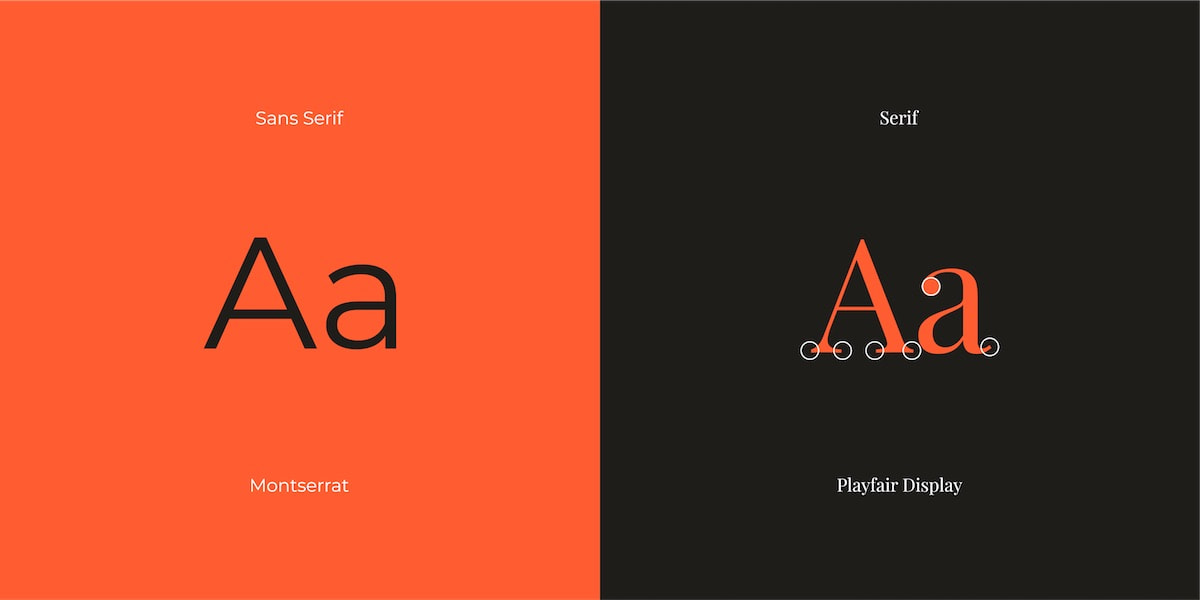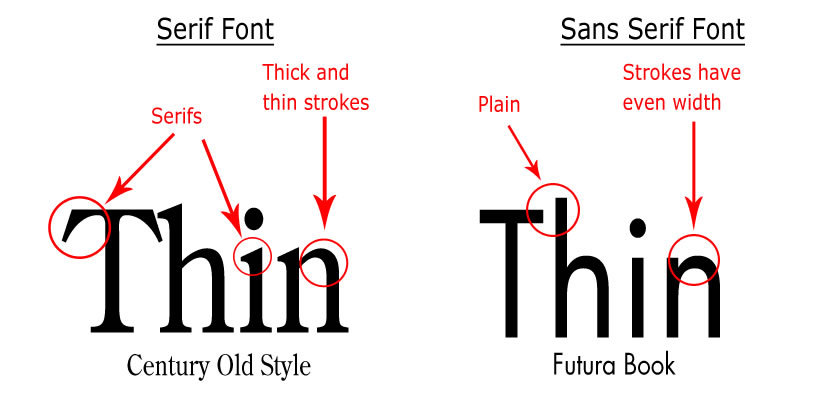
Sans Vs Serif Fonts. “the conventional wisdom is that sans serif fonts are supposed to mimic handwriting, which has more of a flow to it,” says todd. Sans serif fonts say modern, approachable, and clean.
Sans serif fonts also work well where there’s very little room for copy. Since they have fewer details and features, they are easier to render clearly in those environments. At best, one can only test a specific 'font x' vs.
Mix A Decorative Script With Sans Serif To Create A Formal Mood.
Baschone is a vintage and old style serif that brings a lot of personality, while manford is contemporary with hints of 70s vintage. Sans serif fonts say modern, approachable, and clean. Sans serif fonts also work well where there’s very little room for copy.
Pair It With A Formal Image Or Topic, And It Can Match The Message.
These look more modern and less ornate. They are stylishly simplistic in the absence of decorative strokes. And nearly any other aspect of a typeface you may be interested.
Sans Serifs Are Generally Easier To Read On Small Screens Like Smartphones And Smartwatches.
That's the case for this sophisticated font pairing, baschone and manford. Sans serif and serif font combinations only work if both fonts are completely different. The most common one you may know of is the times new roman font.
There Is One Major Difference Between These Two Font Styles.
These fonts are easy to read, crisp and clean and ideal for flow text. Determine the font that suits best for you. But they also explain the historical background.
When Selecting A Typeface For Young Children, Or Anyone Just Learning To Read, Sans Serifs Are Preferable, As Their Simplified Letterforms Are Easier To Recognize.
“the conventional wisdom is that sans serif fonts are supposed to mimic handwriting, which has more of a flow to it,” says todd. Sans serif fonts, on the other hand, communicate a completely different message. Sans serif fonts aren’t always informal.